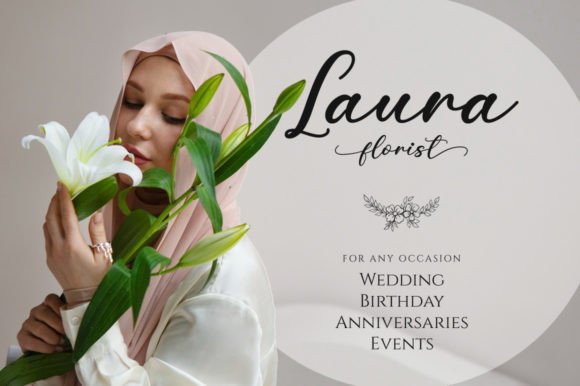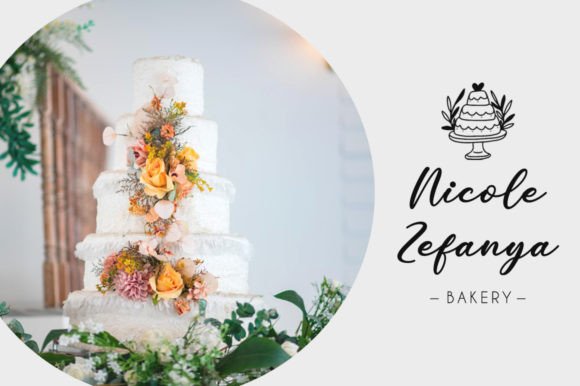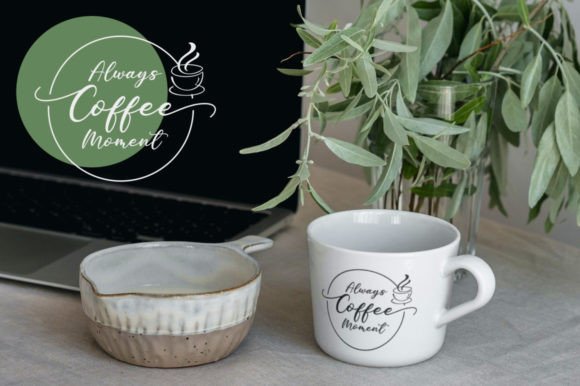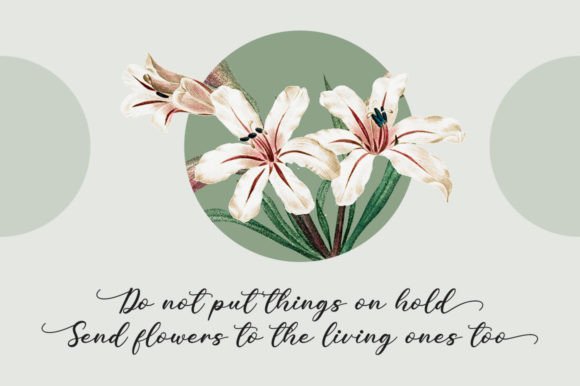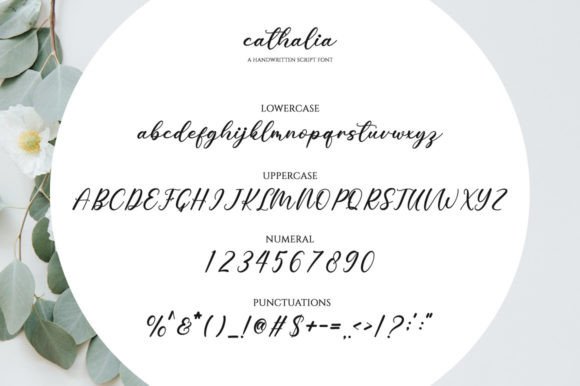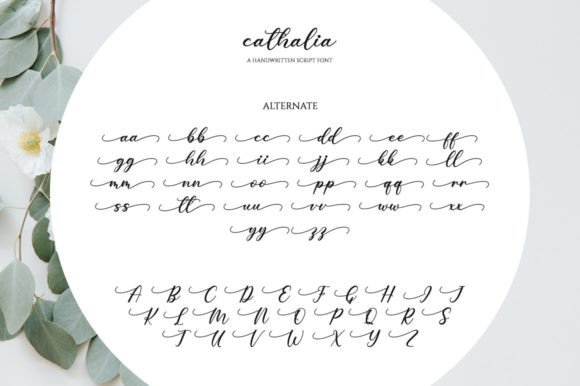
Cathalia Font: Elevate Your Designs with a Timeless Handwritten Style
Are you searching for a font that can add a touch of elegance and sophistication to your designs? Look no further than Cathalia, a lovely and timeless handwritten font that is perfect for creating eye-catching logos, branding, and quotes. In this article, we’ll explore the features and benefits of Cathalia, and why it’s a must-have for designers and crafters.
What is Cathalia Font?
Cathalia is a beautiful handwritten font that exudes a sense of classic charm and refinement. Its flowing lines and delicate curves make it an ideal choice for designs that require a touch of elegance and sophistication. Whether you’re creating a logo, branding materials, or quotes, Cathalia is the perfect font to add a personal and human touch to your work.
Key Features of Cathalia Font
- Timeless Design: Cathalia’s design is inspired by traditional handwritten fonts, making it a timeless choice that will never go out of style.
- Handwritten Style: The font’s handwritten style adds a personal and human touch to your designs, making them more relatable and engaging.
- PUA Encoded: Cathalia is PUA (Private Use Area) encoded, which means you can access all of the glyphs and swashes with ease.
- Ease of Use: The font is easy to use and works seamlessly with most design software, including Adobe Illustrator and Canva.
Benefits of Using Cathalia Font
So, why should you choose Cathalia for your designs? Here are just a few benefits of using this lovely font:
- Stand Out from the Crowd: Cathalia’s unique and elegant design helps your work stand out from the crowd and grabs the attention of your audience.
- Enhance Your Brand: The font’s timeless style and sophistication make it an excellent choice for branding, helping to elevate your brand’s image and reputation.
- Versatile: Cathalia is a versatile font that works well for a wide range of design projects, from logos and branding to quotes and social media graphics.
- Easy to Read: The font’s clear and legible design makes it easy to read, even at small sizes.
Who Can Benefit from Cathalia Font?
Cathalia is an excellent choice for a wide range of designers and crafters, including:
- Graphic Designers: Graphic designers can use Cathalia to create stunning logos, branding materials, and marketing collateral.
- Scrapbookers: Scrapbookers can add a touch of elegance and sophistication to their pages with Cathalia.
- Crafters: Crafters can use Cathalia to create beautiful and unique projects, such as handmade cards and gift tags.
- Social Media Influencers: Social media influencers can use Cathalia to create eye-catching graphics and quotes that engage their audience.
Tips for Using Cathalia Font
Here are a few tips for getting the most out of Cathalia:
- Experiment with Different Sizes: Try using Cathalia in different sizes to see how it looks in various contexts.
- Pair with Other Fonts: Pair Cathalia with other fonts to create a unique and interesting contrast.
- Use Swashes and Glyphs: Take advantage of Cathalia’s PUA encoding to access a wide range of swashes and glyphs.
Cathalia is a beautiful and timeless handwritten font that is perfect for designers and crafters looking to add a touch of elegance and sophistication to their work. With its PUA encoding, ease of use, and versatile design, Cathalia is an excellent choice for a wide range of design projects. Whether you’re creating logos, branding materials, or quotes, Cathalia is sure to elevate your designs and help you stand out from the crowd.